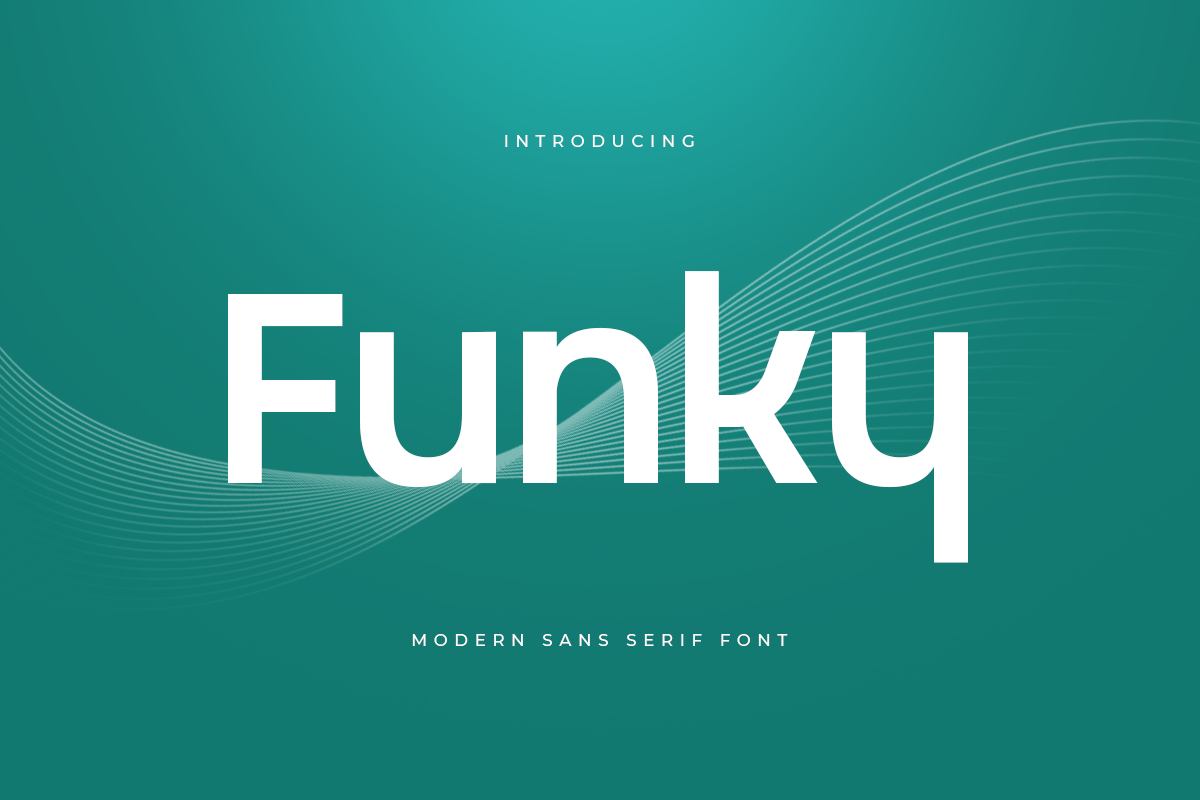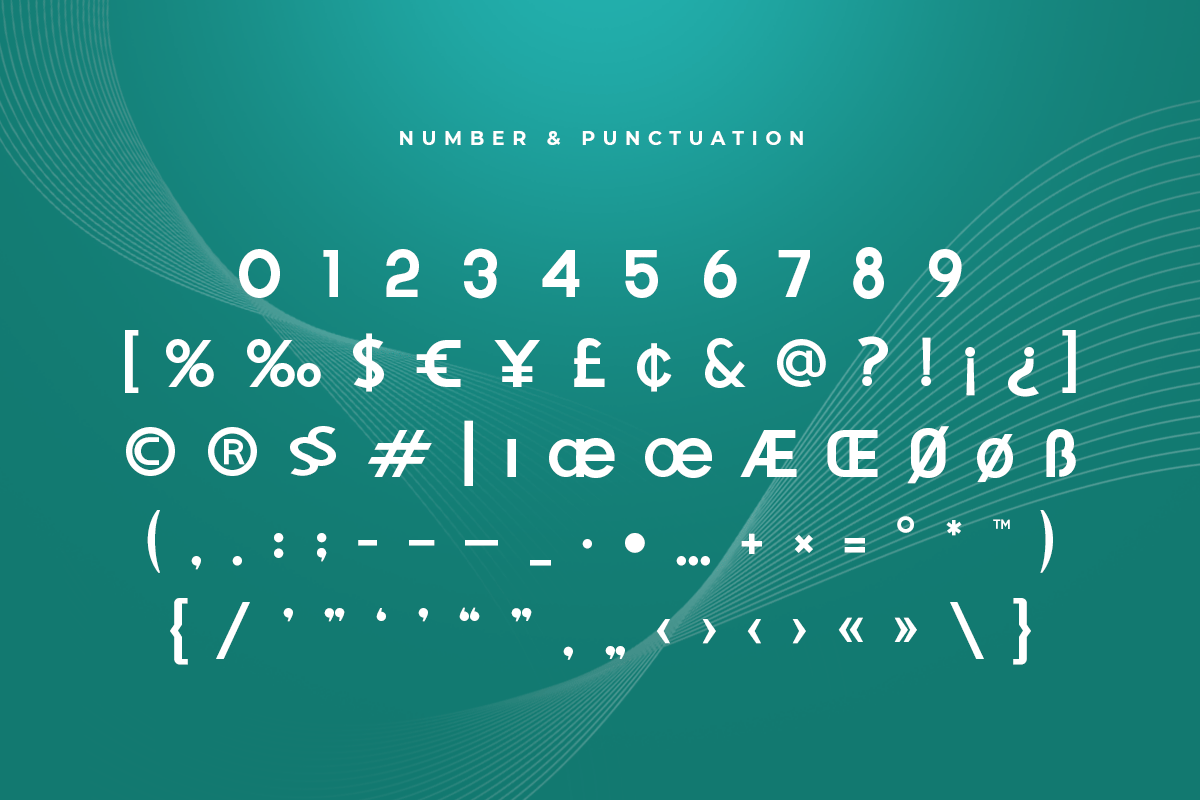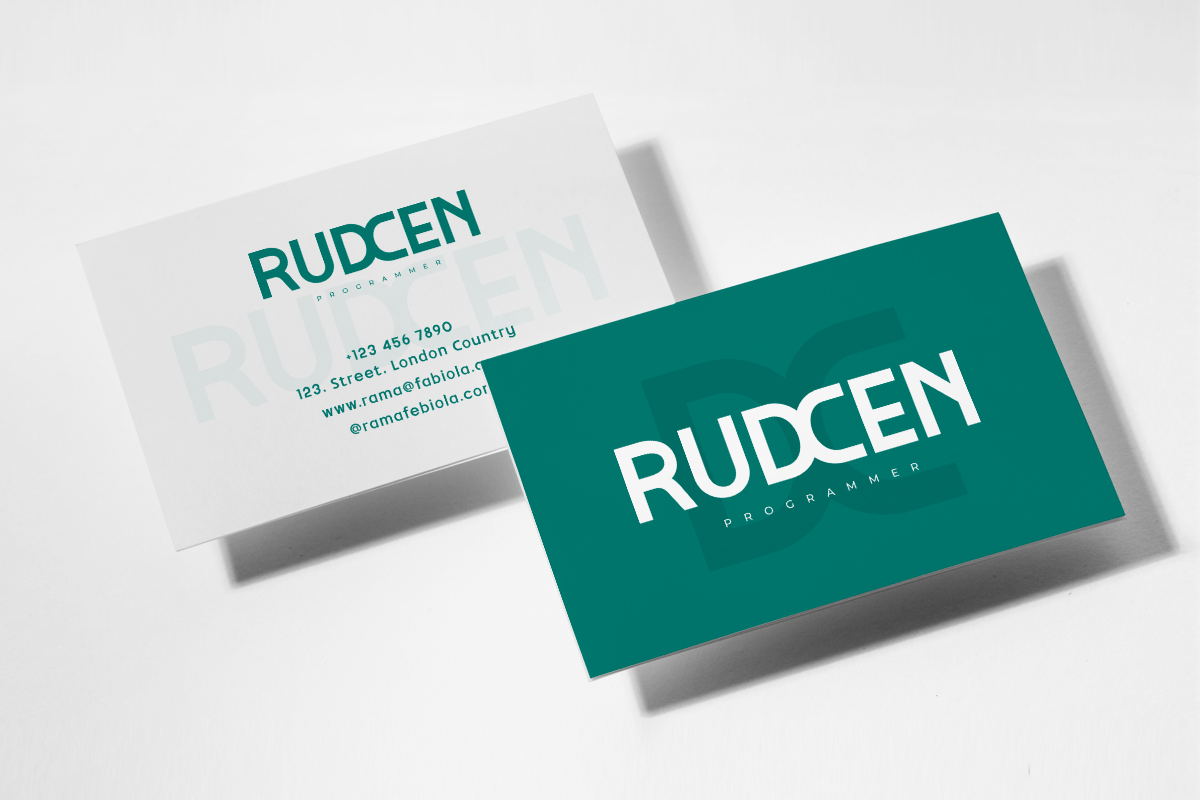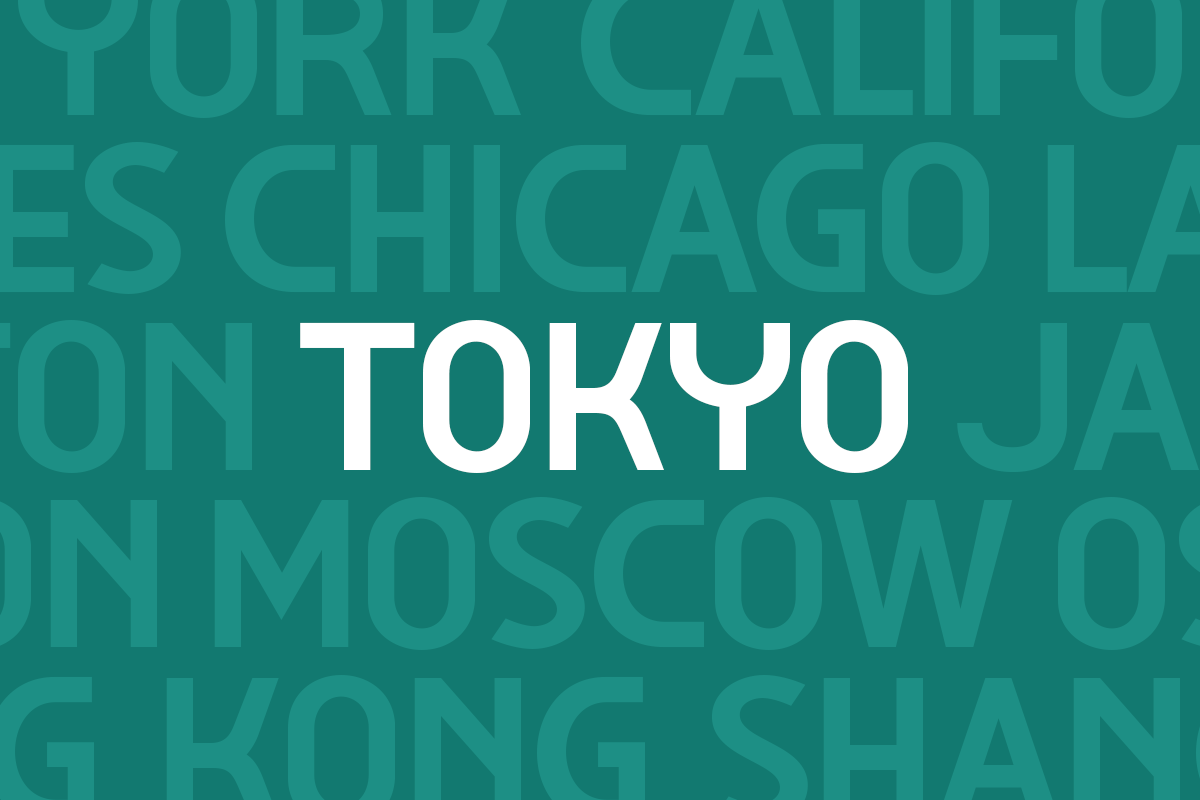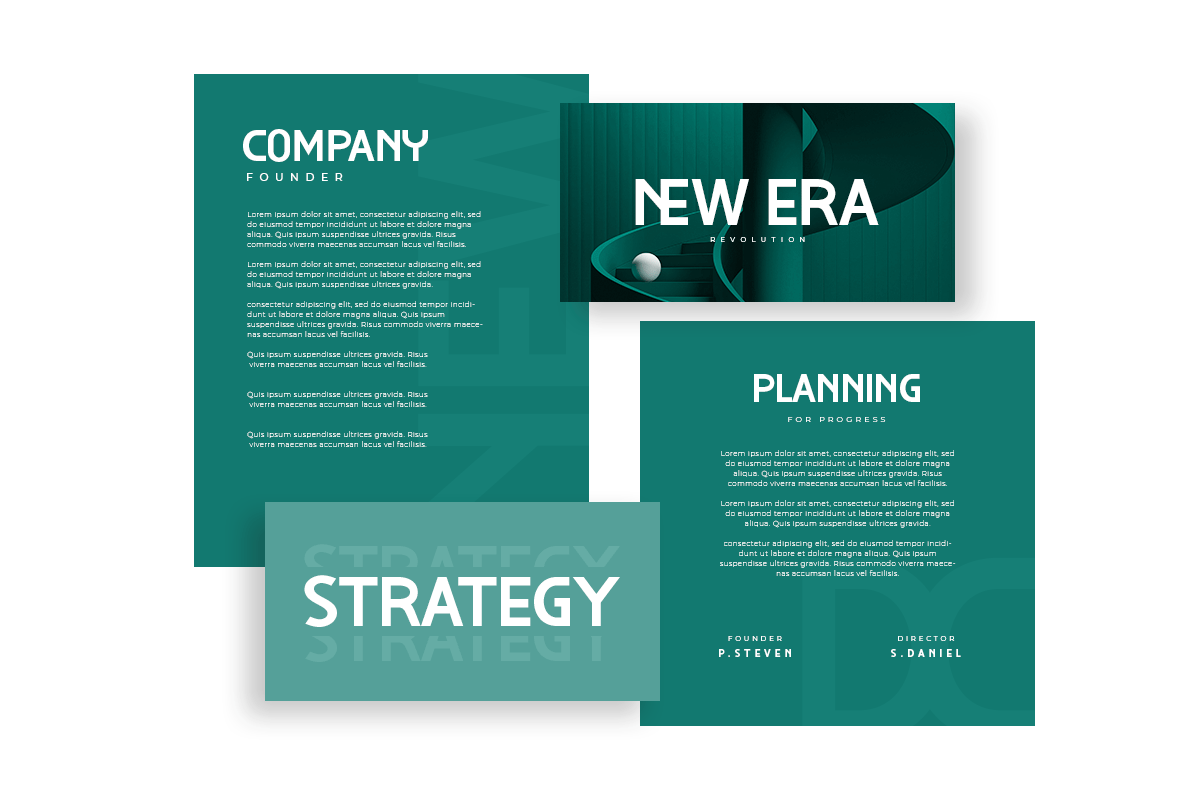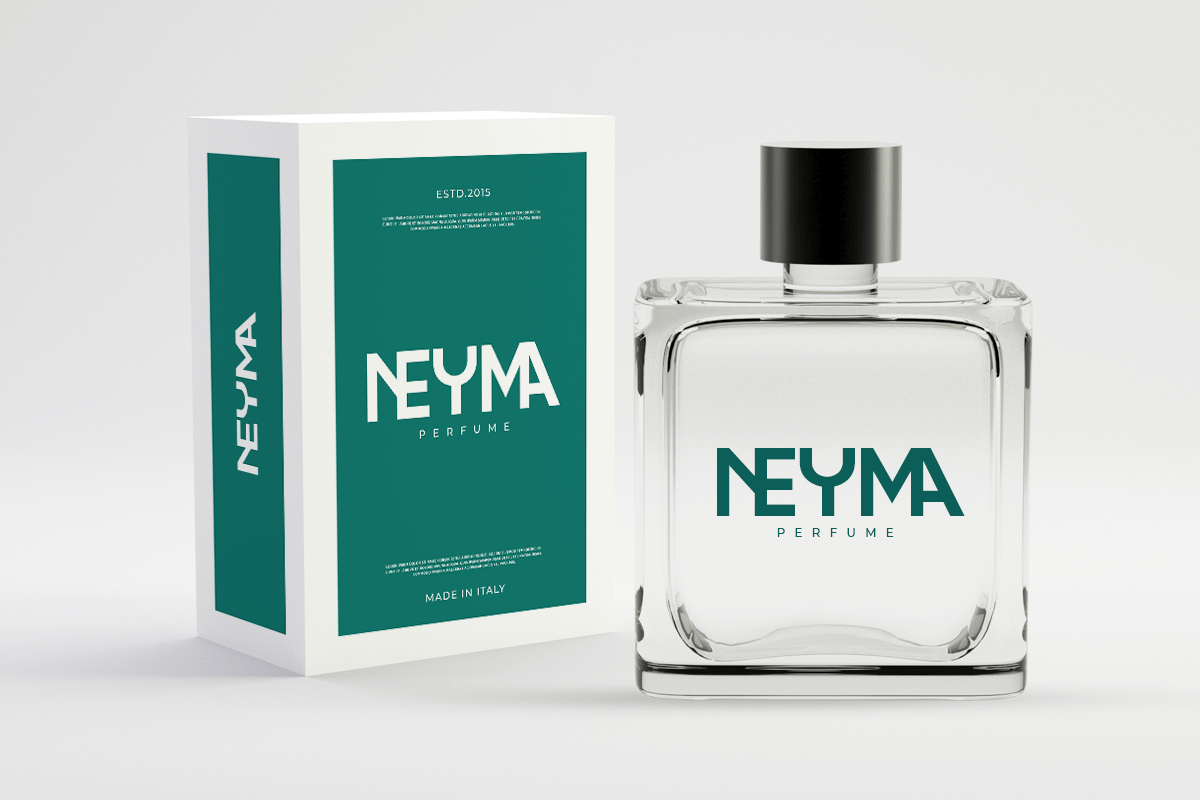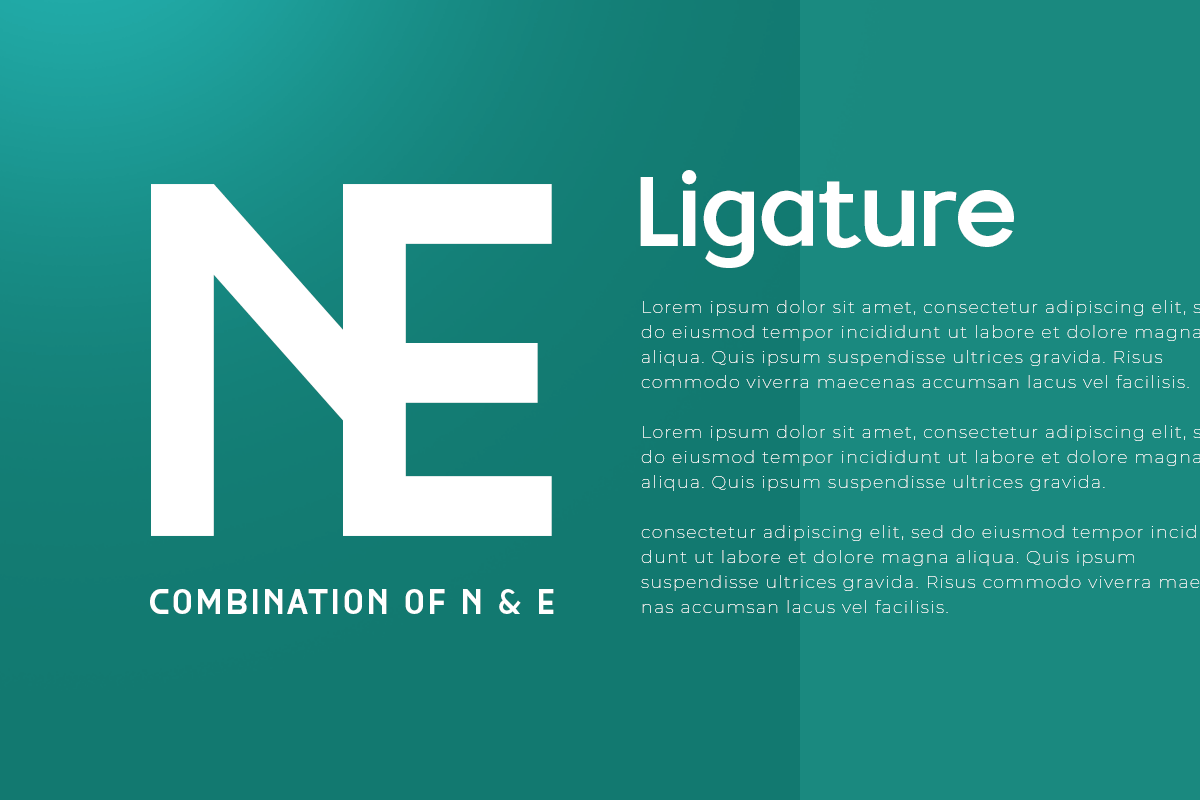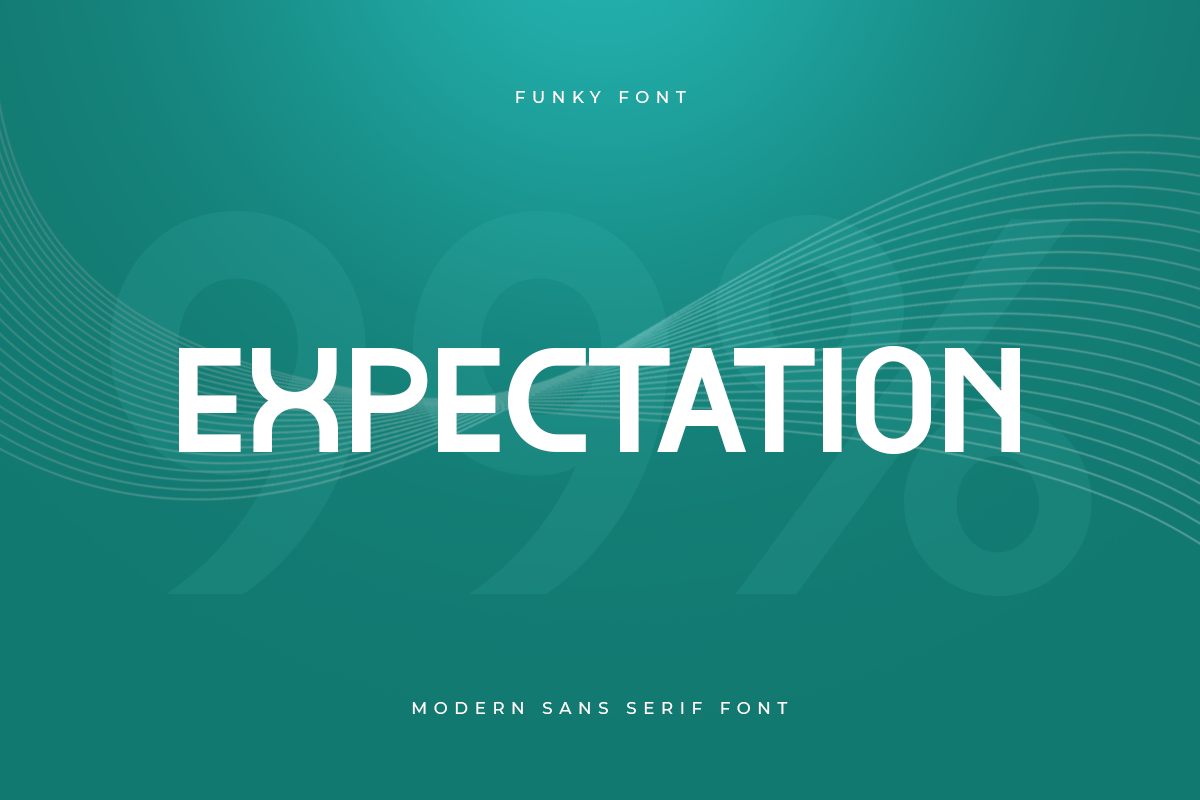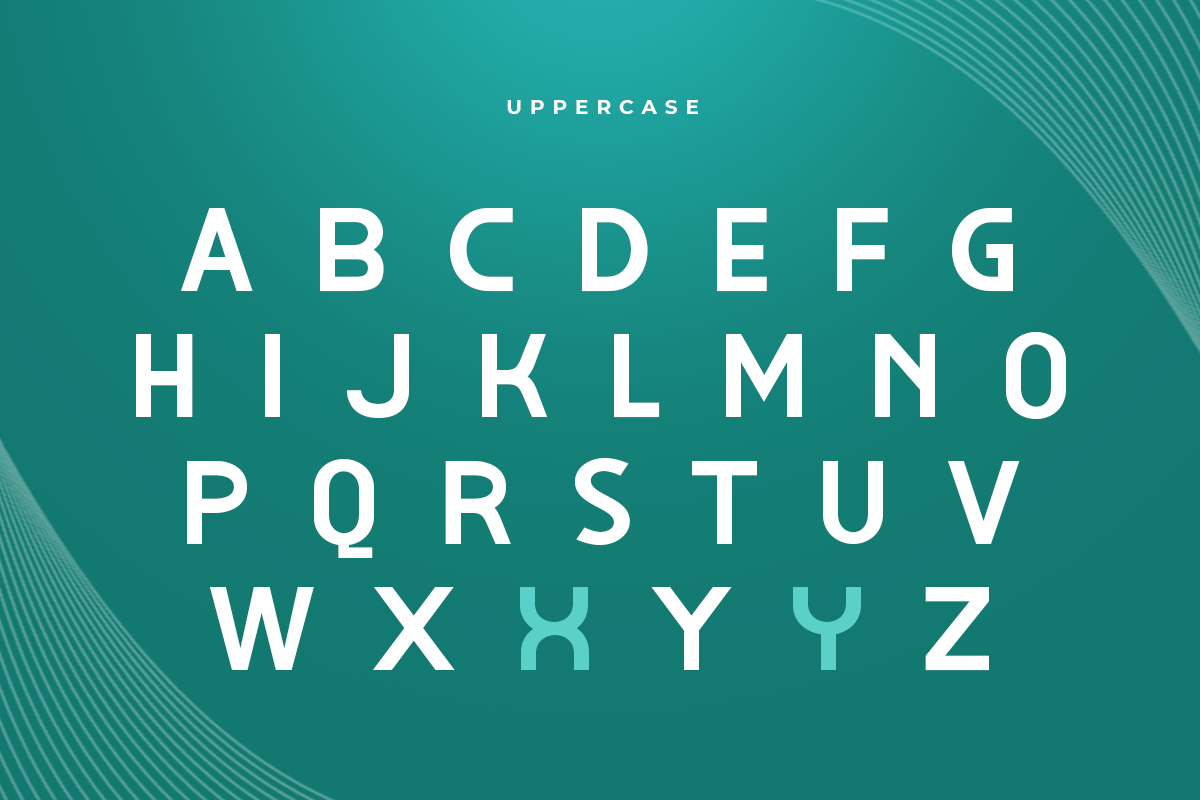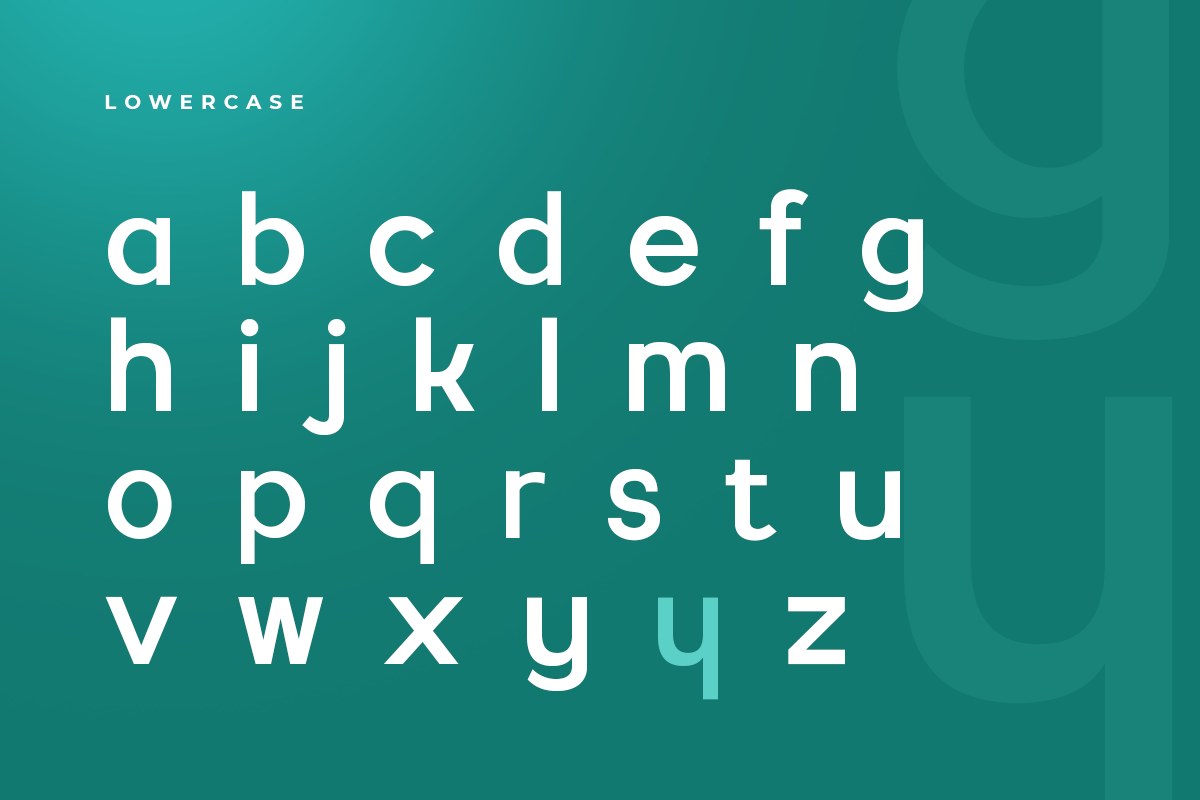
Funky – Modern Sans Serif Font
Funky is a Modern Sans Serif Font with Unique curve that perfect for branding, logotyp, poster design, etc
A new San Serif Font that we created special for Headline, Title and more stand out typography needs, with extra ligature that will add your variations. It’s so perfect to add your style and headline overview. And specially for Headline font, we crafted for unique style and modern feels so enjoy to create any project that will show your main idea out.
Funky Modern Sans Serif Font ready with:
- Any options to get creative variations (combination of Ligature Characters)
- Preview as a inspirations that you can do with Funky font
- Ready with All characters